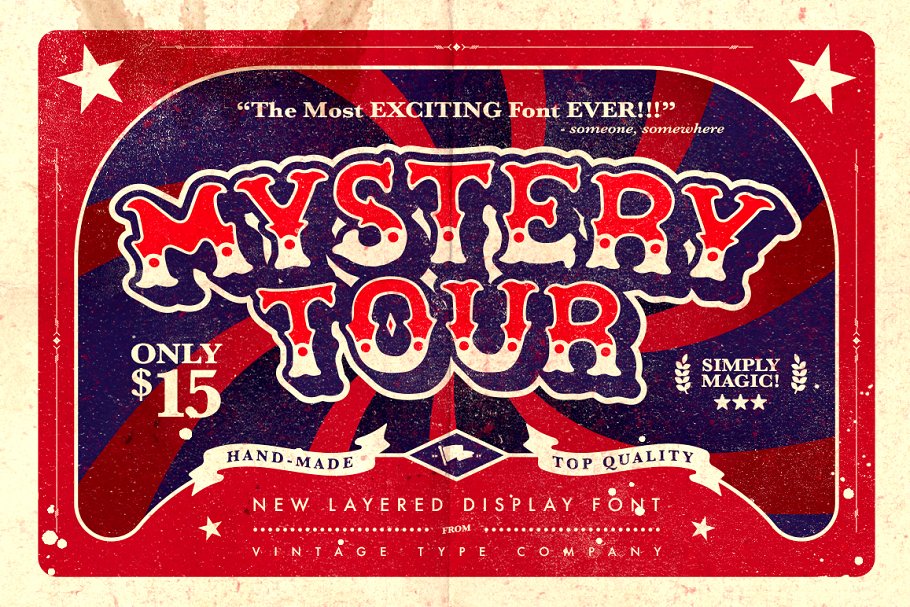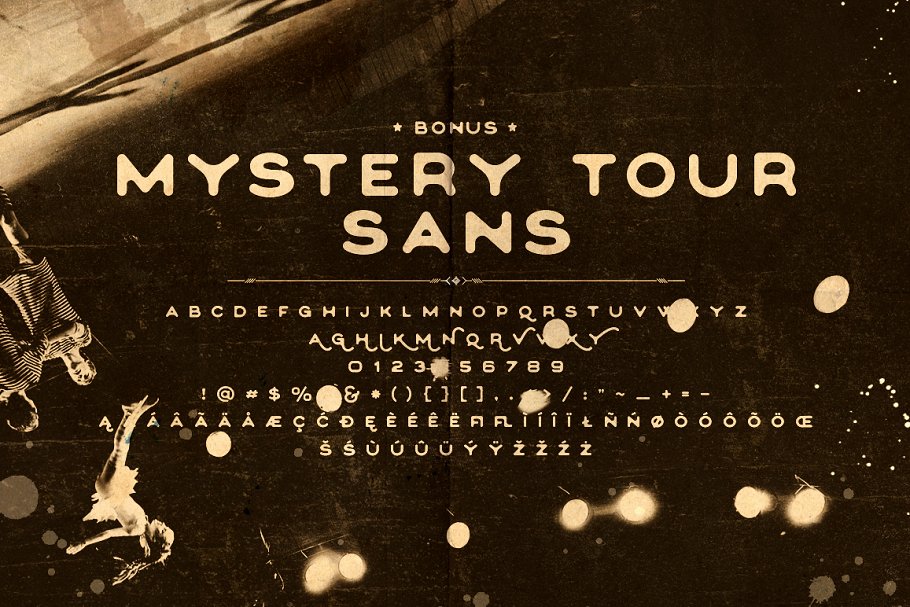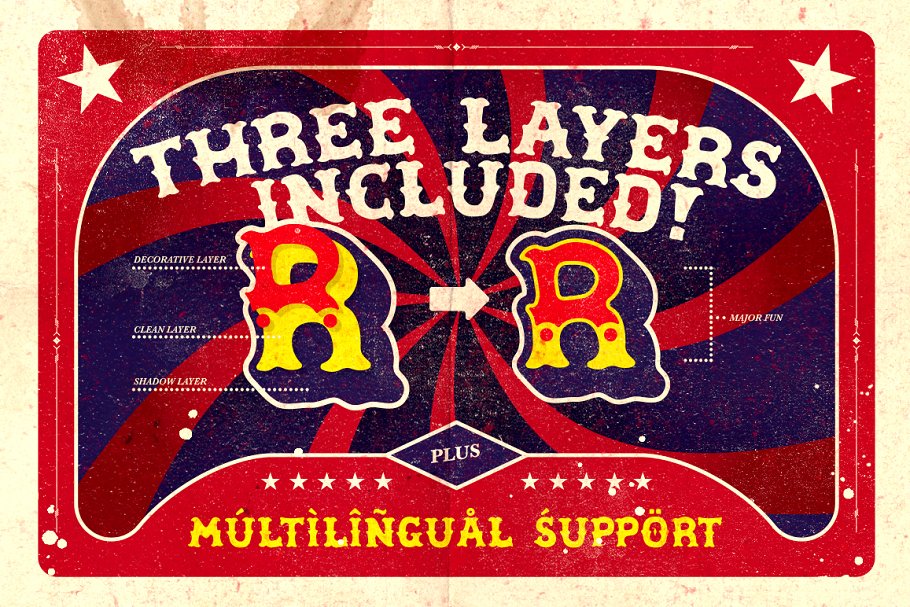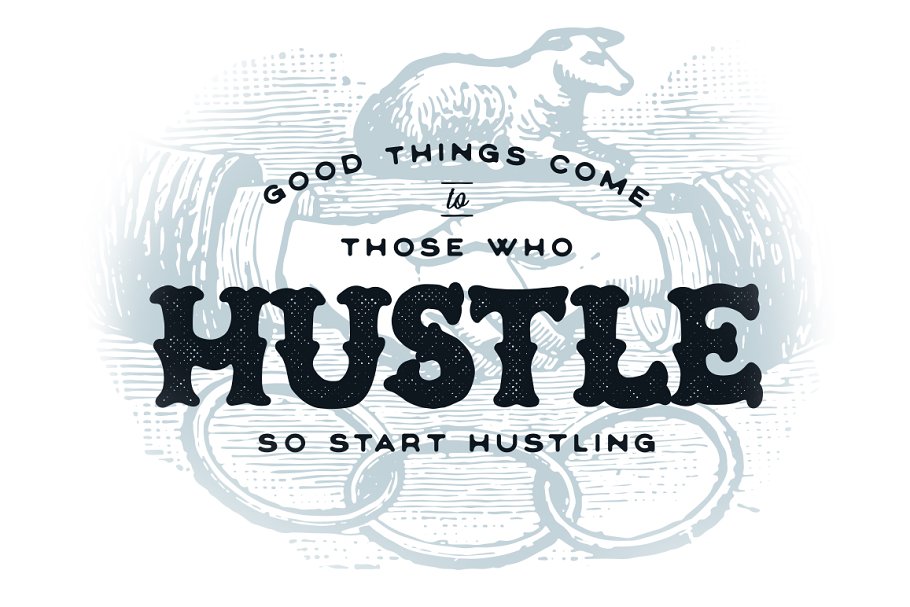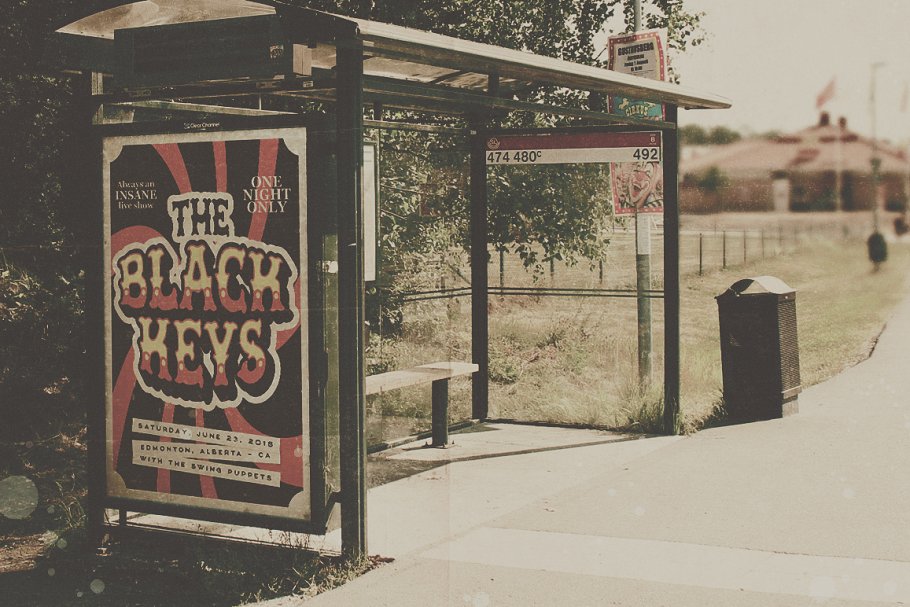
About the Mystery Tour Display Font
Just want Mystery Tour Sans? No problem!https://crmrkt, com/Pd19dMystery Tour is a americana-inspired, layered display face that comes with a bonus sans serif, Change the colours in the click of a button!This font is great for packaging, cover design, posters, logos, basically any time you need your message to pop, Both Mystery Tour & Mystery Tour Sans also come included with multilingual support for the following languages:Breton, Catalan, Czech, Danish, Estonian, English, Finnish, French, German, Icelandic, Italian, Latvian, Lithuanian, Norwegian, Portuguese, Romanian, Polish, Scottish Gaelic, Slovak, Slovenian, Spanish, Swedish, Turkish, Welsh